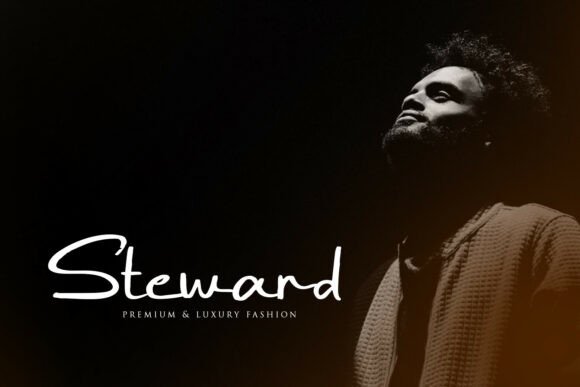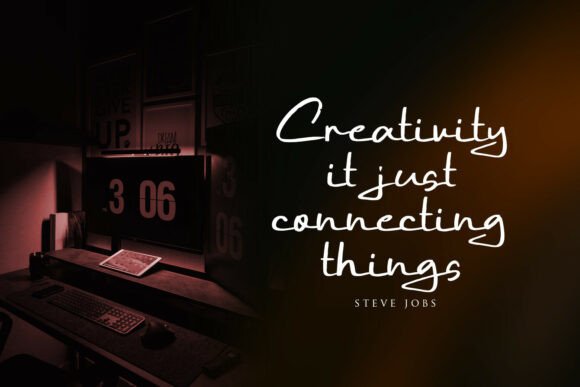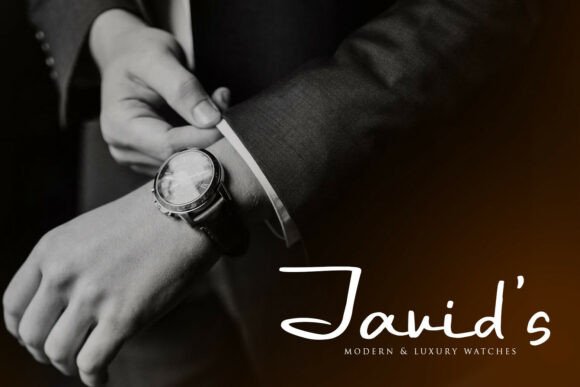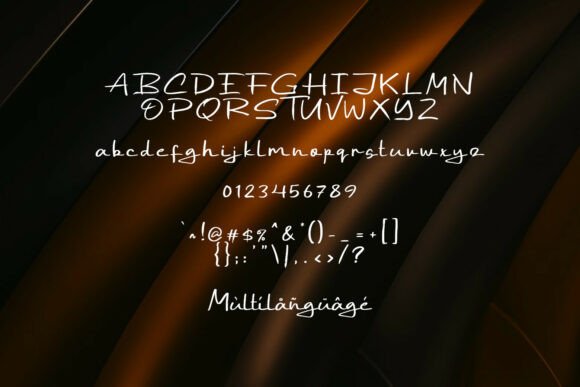
Introducing Beatday Font: Elevate Your Designs with a Modern Handwritten Script
In the world of typography, a well-chosen font can make all the difference in transforming a design from ordinary to extraordinary. For designers and crafters looking to add a personal touch to their projects, Beatday Font is an exceptional choice. This modern handwritten script font boasts a clean, flowing style that mimics natural penmanship, making it perfect for a wide range of creative applications.
The Characteristics of Beatday Font
Beatday Font is distinguished by its elegant monoline strokes and slightly slanted letterforms, which give it a casual yet refined look. The monoline strokes provide a sleek, contemporary feel, while the slight slant adds a touch of warmth and authenticity. This unique blend of characteristics makes Beatday Font an excellent choice for designers seeking to create a distinctive and eye-catching visual identity.
Versatility and Legibility
One of the standout features of Beatday Font is its versatility. Designed to be legible across various design applications, it works beautifully for:
- Branding: Create a lasting impression with a custom logo or brand identity that exudes a sense of modern elegance.
- Blog Headers: Elevate your blog’s visual appeal with eye-catching headers that draw readers in.
- Social Media Graphics: Enhance your social media presence with stylish graphics that reflect your brand’s personality.
- Quotes: Add a touch of sophistication to inspirational quotes and sayings.
- Invitations: Design beautiful invitations for special occasions, such as weddings, parties, or baby showers.
- Product Packaging: Stand out on store shelves with custom packaging that features a unique and captivating font.
- Minimalist Logos: Create simple yet effective logos that convey your brand’s message with clarity.
The Benefits of Using Beatday Font
Beatday Font offers several benefits that make it an attractive choice for designers and crafters:
- Unique and Memorable: Its modern handwritten script style sets it apart from more traditional fonts, ensuring your designs leave a lasting impression.
- Elegant and Refined: The elegant monoline strokes and slightly slanted letterforms give Beatday Font a sophisticated and polished look.
- Versatile: Suitable for a wide range of design applications, from branding and blog headers to social media graphics and product packaging.
- Legible: Designed to be easy to read, ensuring your message is conveyed clearly and effectively.
Tips for Using Beatday Font Effectively
To get the most out of Beatday Font, consider the following tips:
- Pair with Complementary Fonts: Combine Beatday Font with simpler fonts to create visual interest and hierarchy in your designs.
- Experiment with Colors: Try out different color schemes to find the perfect match for your brand or design.
- Play with Sizes: Use varying font sizes to create emphasis and add depth to your designs.
Beatday Font is a modern handwritten script font that offers a unique blend of elegance, versatility, and legibility. Its clean, flowing style and slightly slanted letterforms make it perfect for adding a personal touch to a wide range of creative projects. Whether you’re a designer or crafter, Beatday Font is an excellent choice for elevating your designs and creating a lasting impression.
Discover the possibilities with Beatday Font and take your designs to the next level.